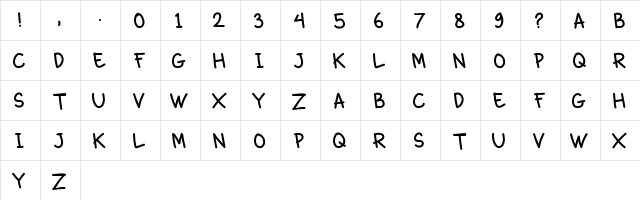
naras Regular Font Preview
naras Regular
naras Regular Font Details
Design Context for naras Typeface
naras is a composed and adaptable typeface that performs quietly and consistently across a wide range of design contexts.